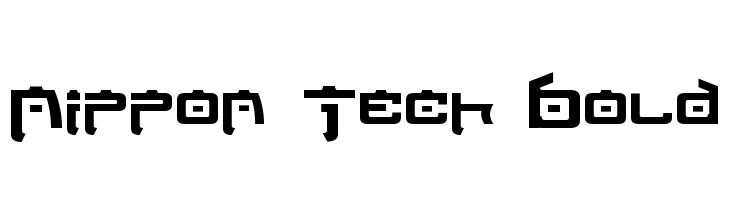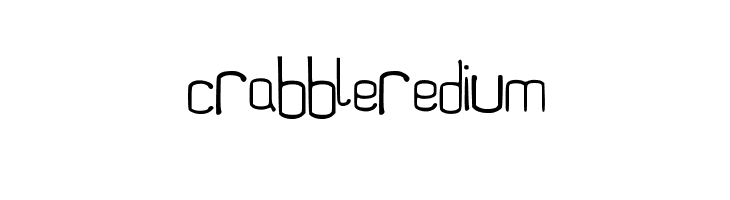
A modern italic font with sleek, slanted letters and smooth curves.
A bold, slab serif font with strong geometric shapes and thick strokes.
A bold, futuristic font with geometric shapes and sharp angles, perfect for tech themes.
A bold, italicized font with sharp angles and a dynamic, modern style.
A bold, angular font with a modern, gothic-inspired design.
A playful, handwritten font with smooth, rounded edges and a friendly appearance.
A bold, decorative font with intricate swirls and flourishes.